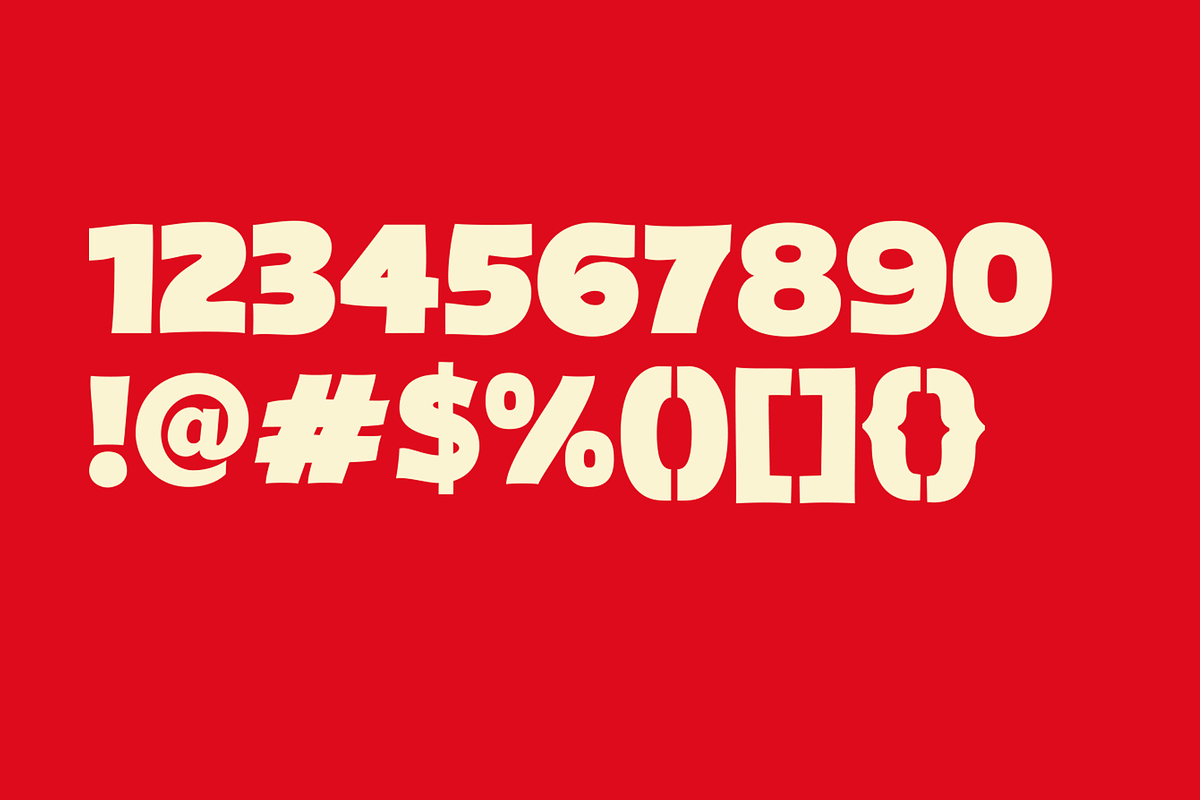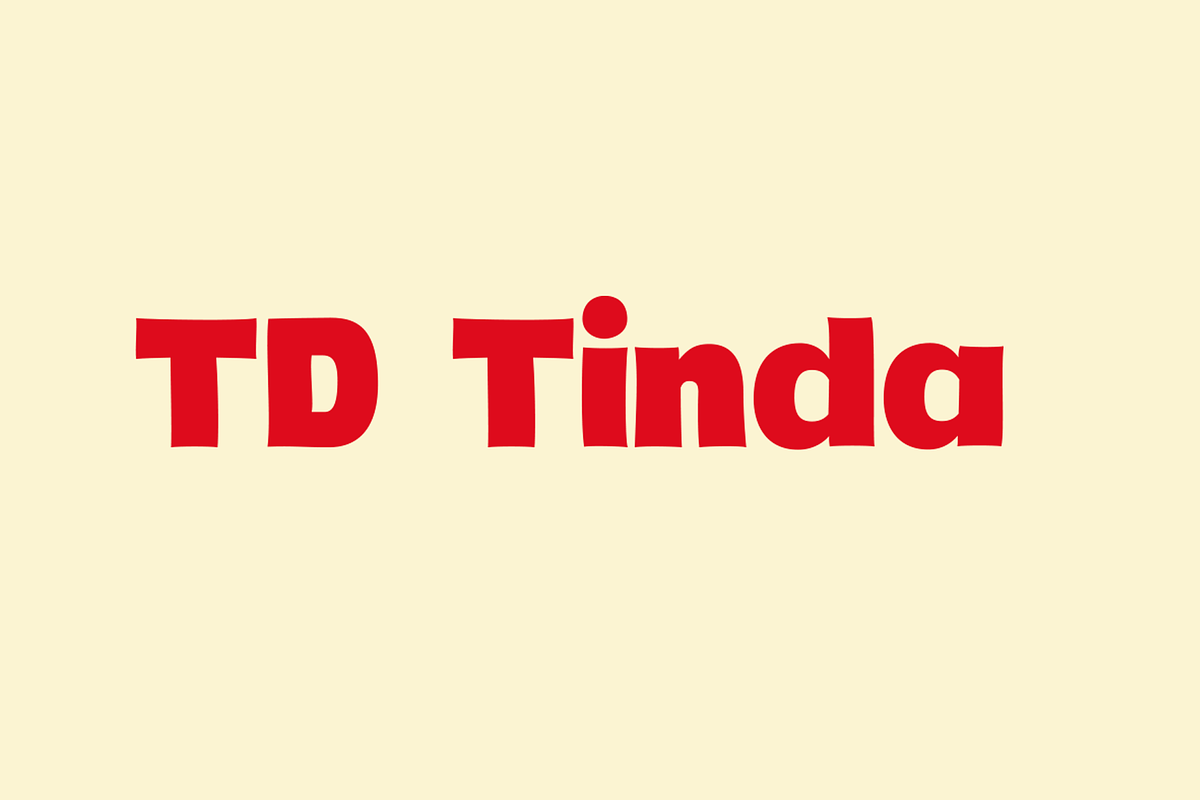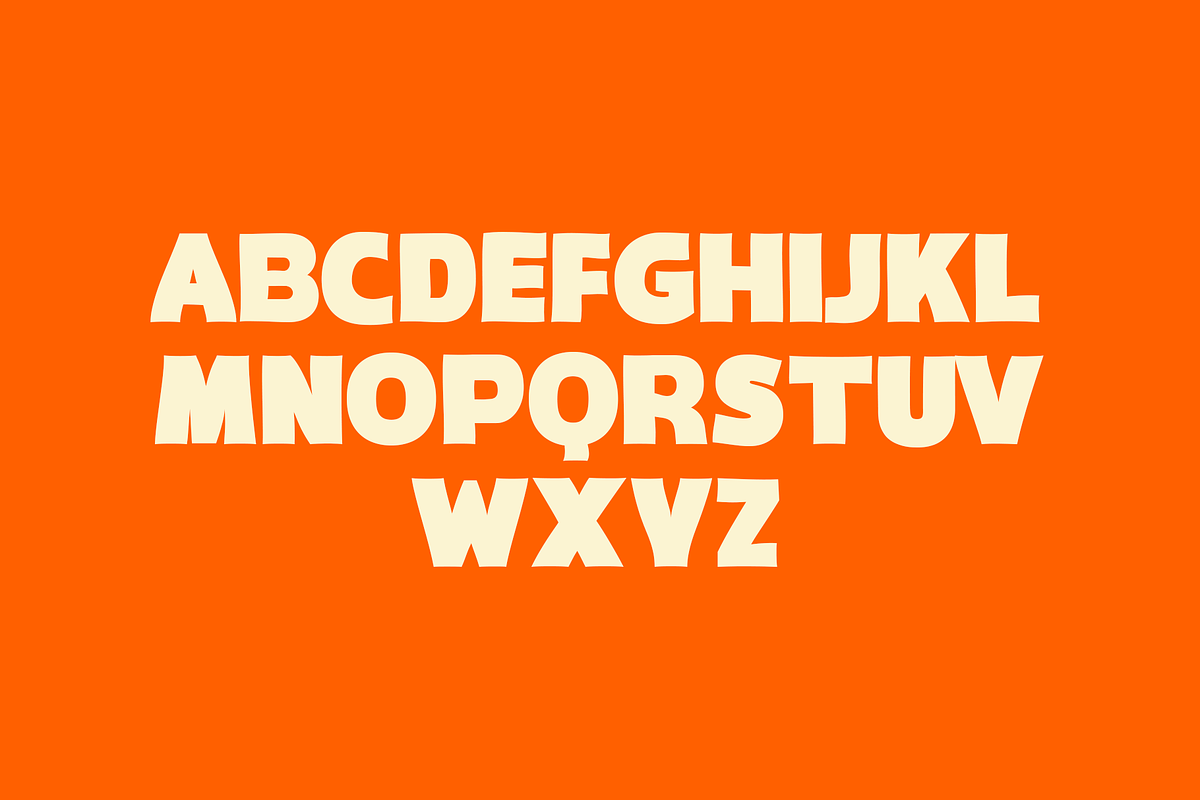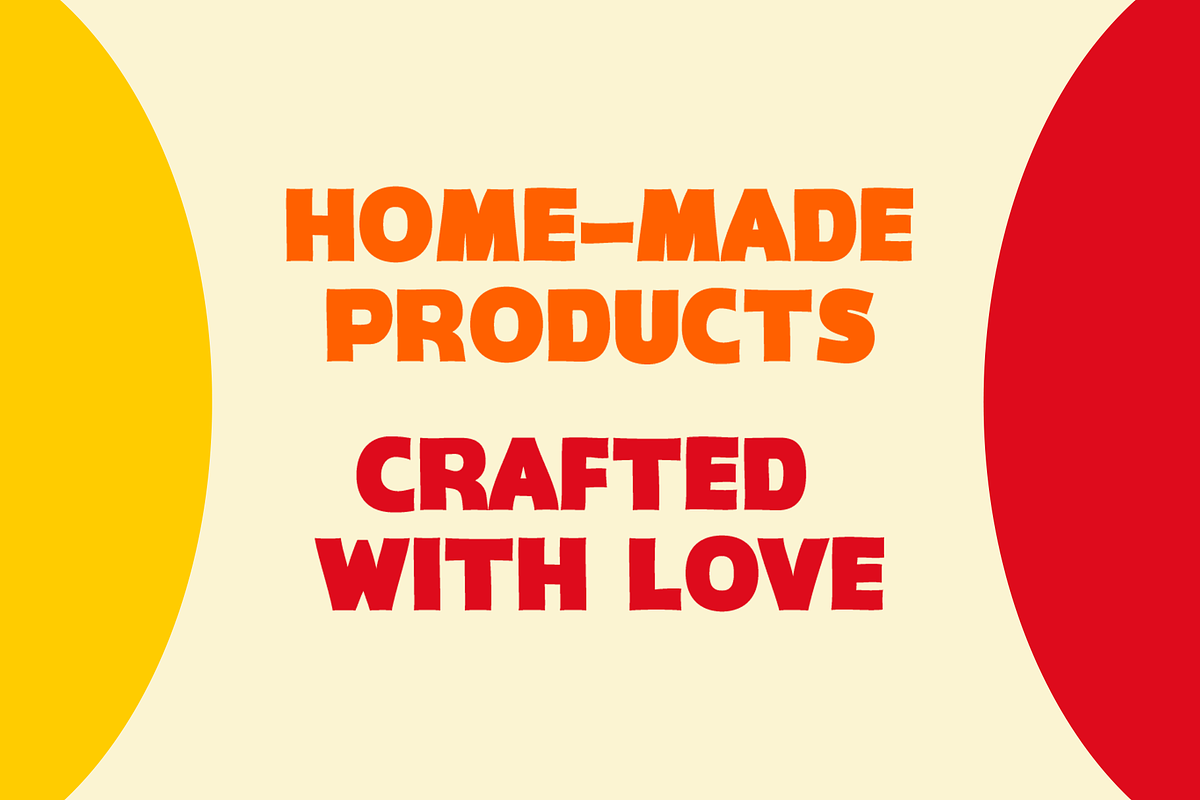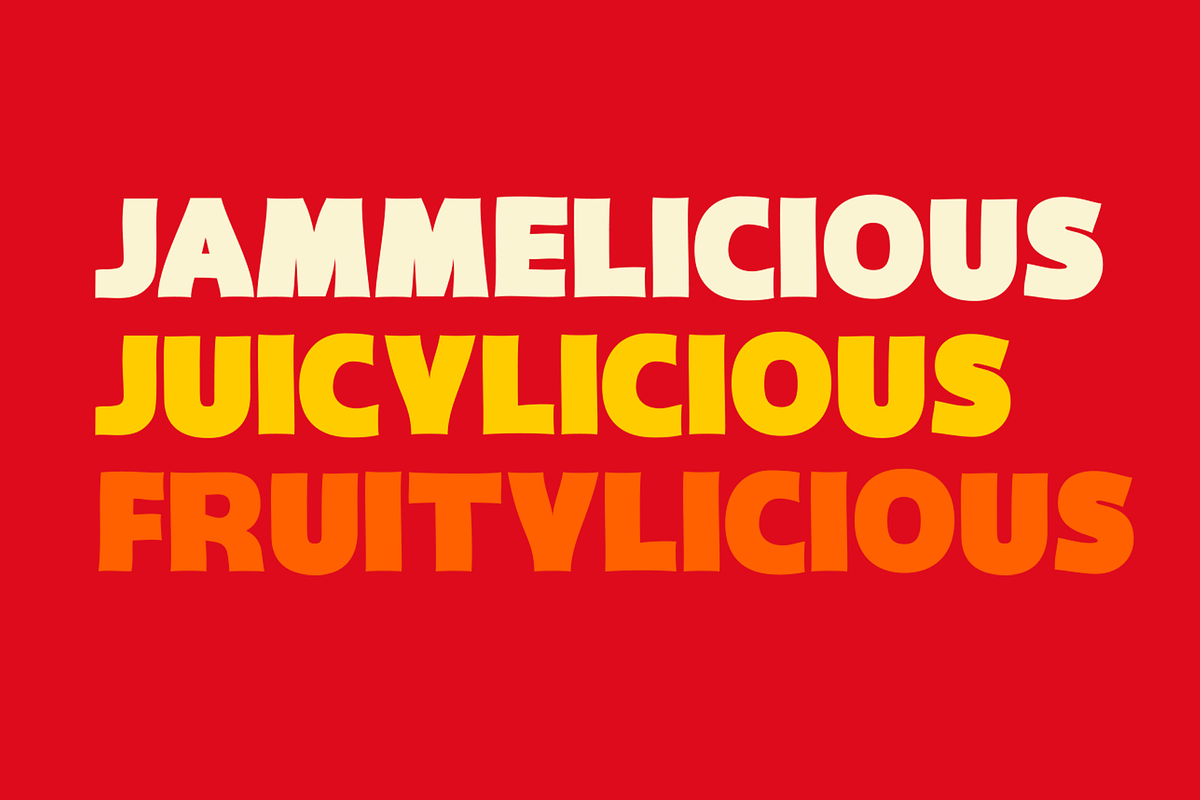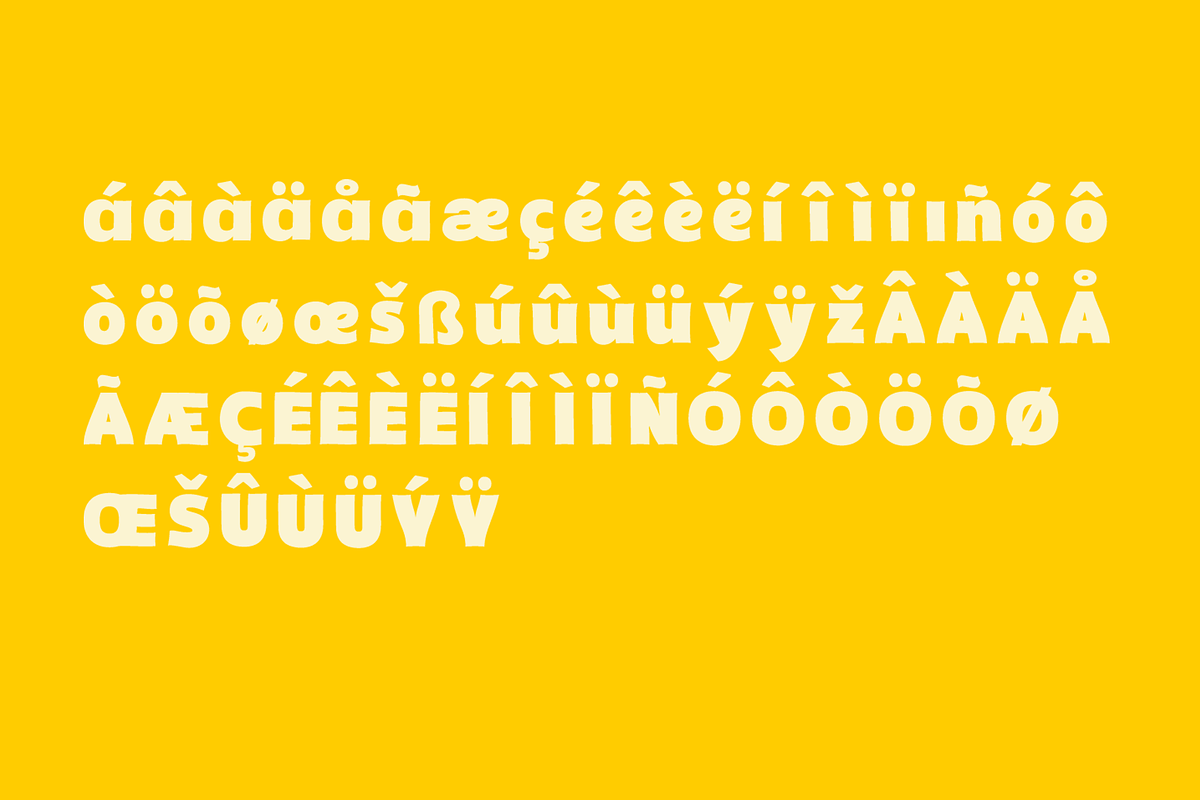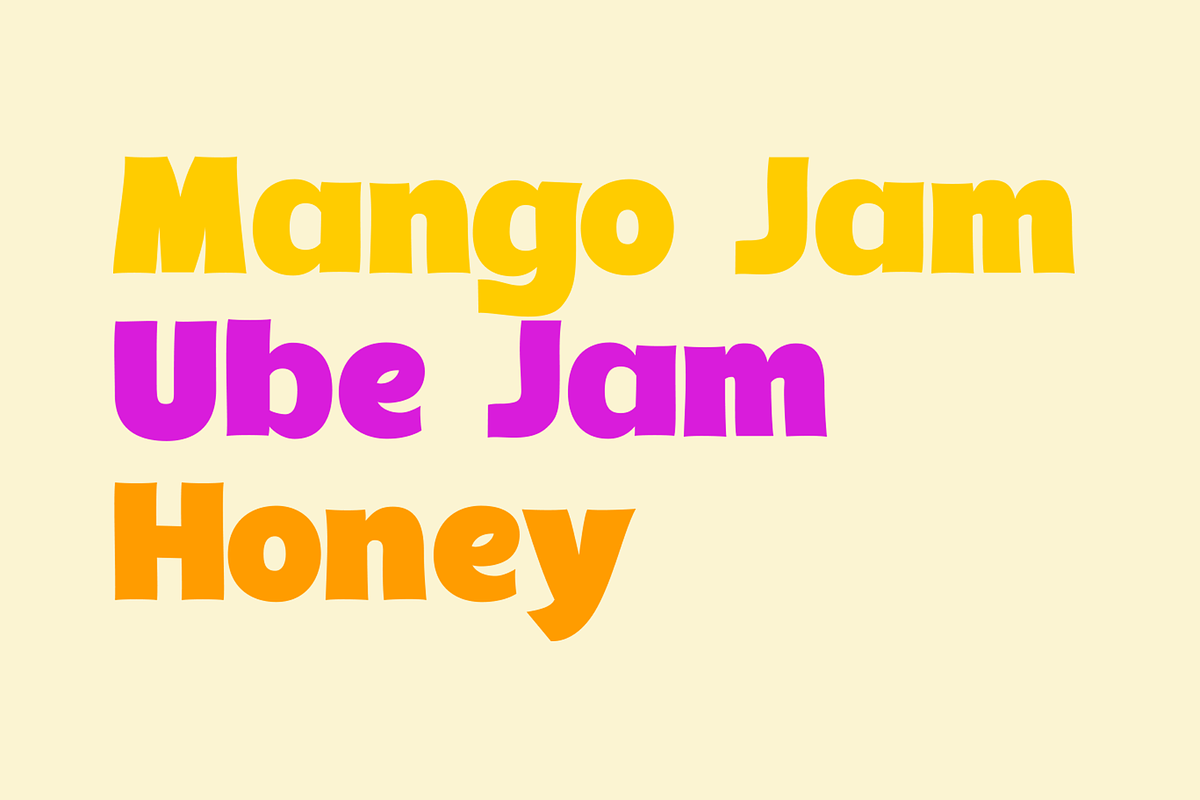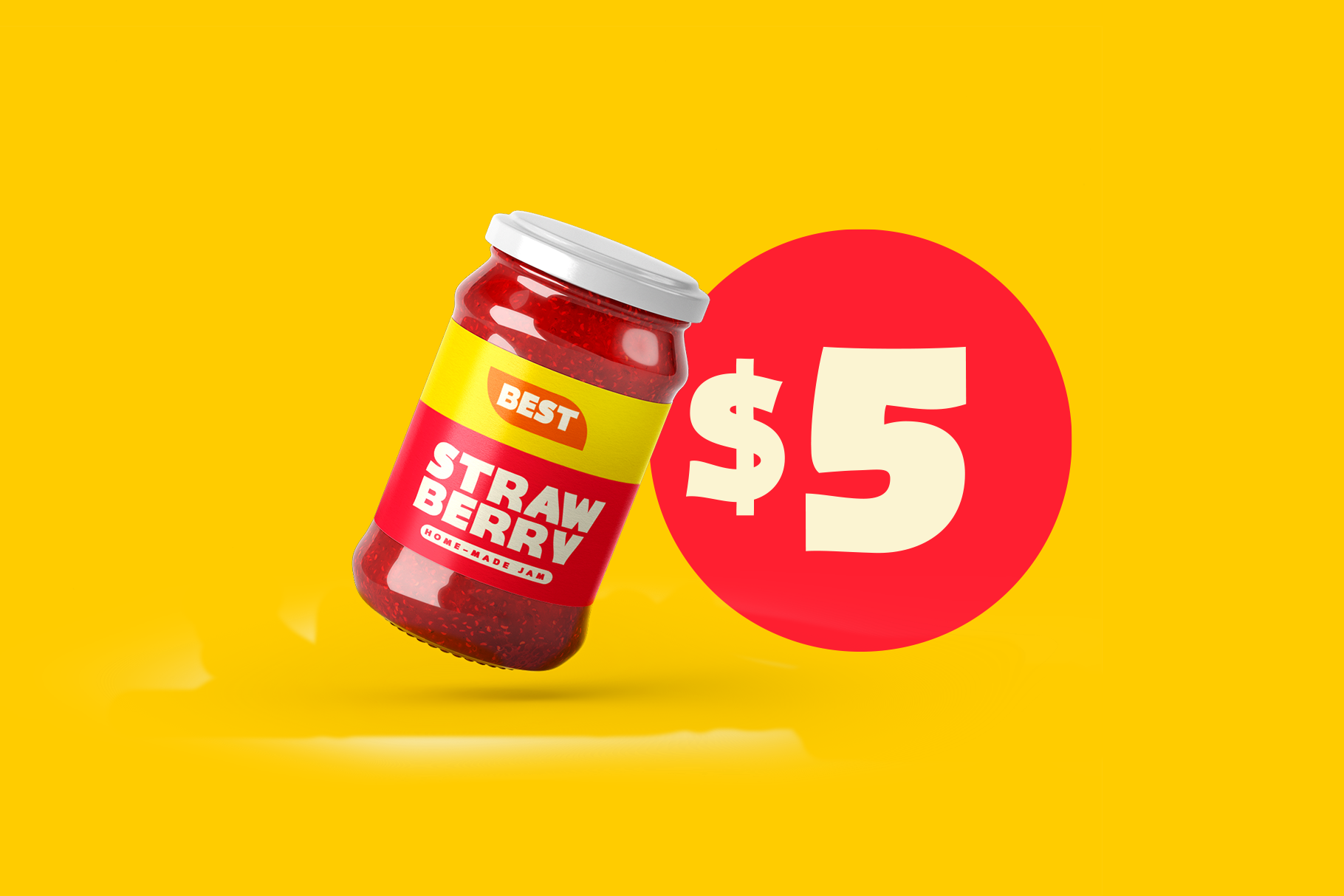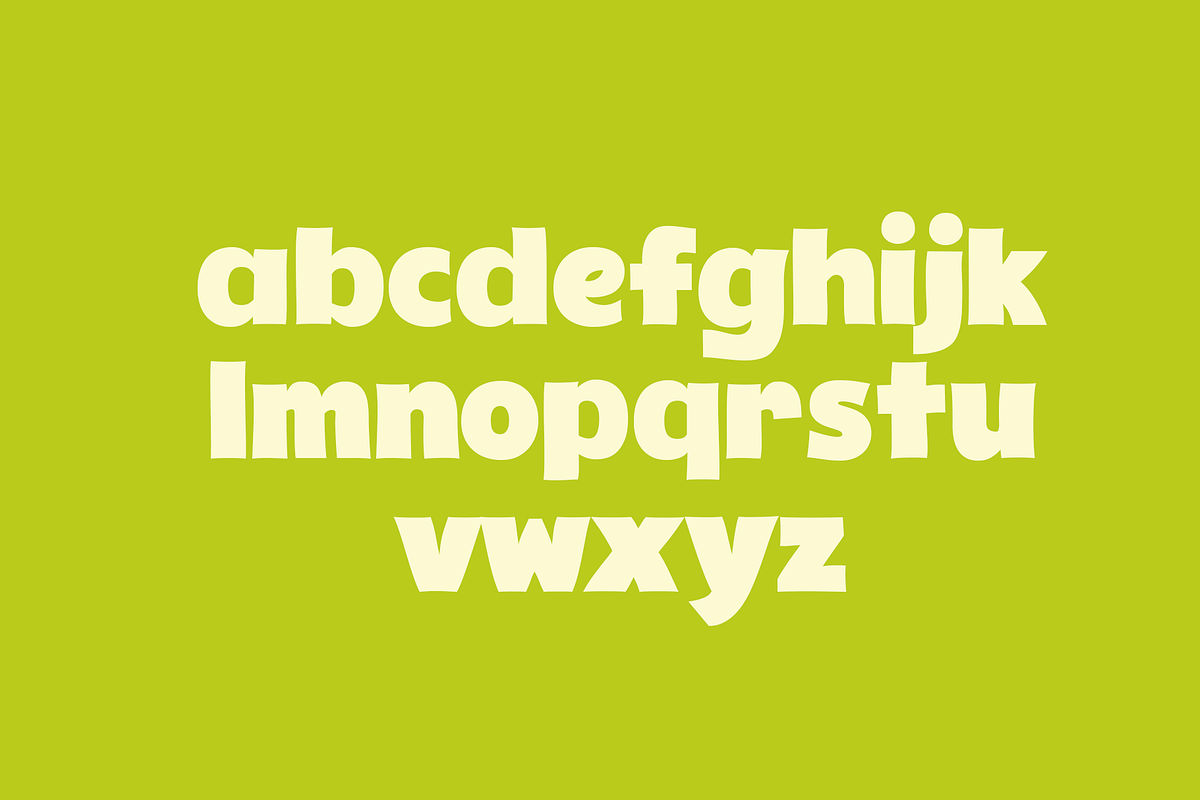
TD TINDA FONT
TD Tinda is a display typeface classified by its hand-lettered style infused with a pronounced calligraphic influence. Each glyph carries an organic unevenness, imparting a playful and expressive quality. TD Tinda is particularly well-suited for label and packaging design, posters, and headlines.
Typeface Designer/Copywriter: Inu Catapusan
Art Director/Copy Editor: Regine Ylaya
Foundry: Tribox Design